Making a design look outstanding and authentic is not easy work. However, we can always make an effort by taking a very simple step: choosing the right font. Natural handwritten fonts create a perfect combination of styles, warmth, and unique character. Unlike rigid digital fonts, handwritten fonts give a natural touch that makes any design feel even more personal and authentic.
This style of font works really well for branding, invites, social media posts, product packaging, and even personal websites. Therefore, this article will guide you to our most authentic, trendy, and natural handwritten fonts for enhancing your creative project games.
Before explaining more about our font recommendation, let’s comprehend the reason why choosing natural handwritten fonts has become a favorite among designers. Well, like previously stated, handwritten fonts give an original and personal touch to a design, making it feel closer and relatable to the audience. The characters of these fonts are adaptable for various design needs, giving more reasons for designers to use them comfortably for their projects.
Natural handwritten fonts’ shapes, resembling human handwriting with unique and unstructured characters, give a creative, personal, and appealing impression. These natural handwritten fonts can convey emotions, ranging from warm, friendly, and playful to elegant, depending on the font style. With the right selection, natural handwritten fonts not only beautify the design but also effectively convey messages and identity.
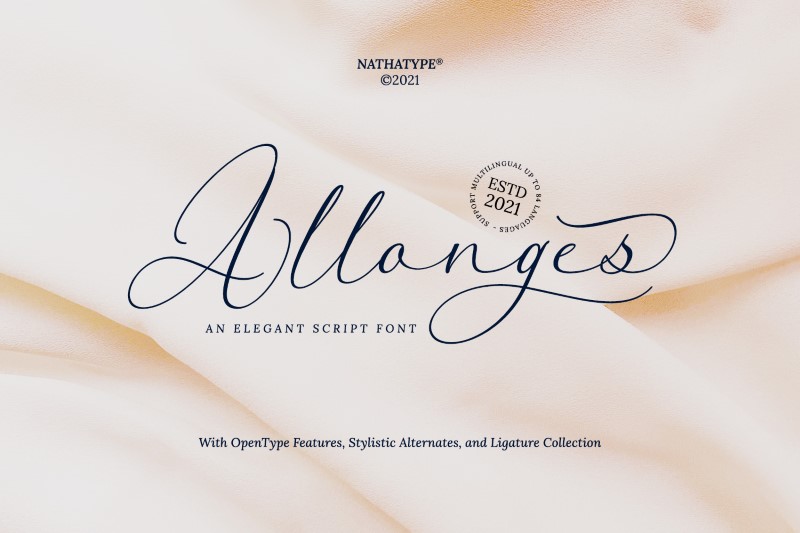
Introducing our first font, Allonges. Allonges is an elegant script font with smooth and beautiful strokes, making it one of the most feminine, natural handwritten fonts in this list. The long strokes of Allonges make it look casual yet captivating, as it resembles beautiful calligraphy. Complete with ligatures, swashes, and stylistic sets, Allonges is ideal for elegant, romantic, and modern branding, logos, wedding invites, greeting cards, fashion lookbooks, and expressive personal projects.
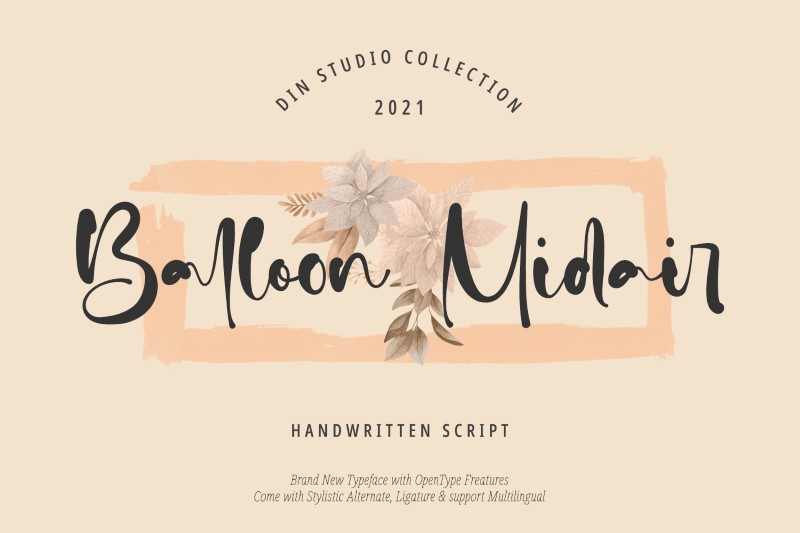
Next, we have Balloon Midair, a handwritten script font with playful and expressive characters. The letters have free-flowing strokes, with thickness variation that looks like they were written by hand using a brush or pen. These traits provide a personal and expressive impression for the font. The variation in baseline height adds a distinctive dynamic feel to each letter. Rounded, inflated shapes combined with the soft curves characteristic of Balloon Midair create a pleasant, casual, yet still elegant impression. This font is suitable for creative designs such as invitations, packaging, quotes, branding, and promotions.
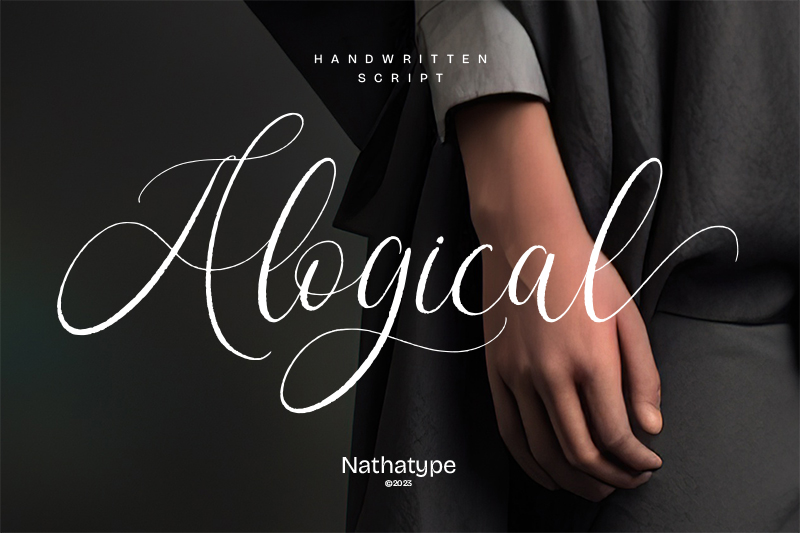
And then there’s Alogical. Among natural handwritten script fonts, Alogical stands out for its artistic swashes and beautifully organic style. Each letter flows gracefully, balancing elegance with emotional warmth. Its flexible and expressive letterforms bring a personal touch to any design, making it perfect for wedding invitations, upscale branding, editorial layouts, and premium product packaging.
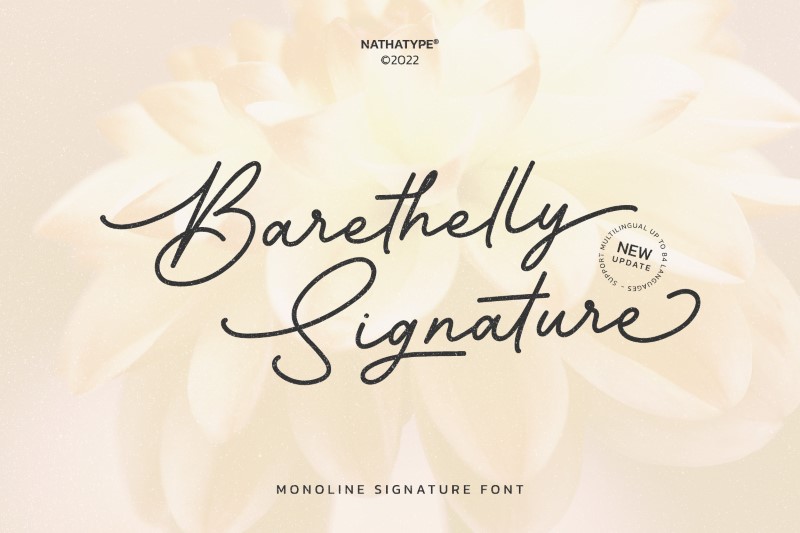
Inspired by human signature, Barethelly Signature exudes a vibe that most of the natural handwritten fonts here have: a clean, elegant, and confident look. With smooth monolines, this font boosts an impression of modernity and personal touch that is perfect for various designs like social media posts, invites, stickers, posters, and more. Barethelly Signature features stylistic sets, ligatures, and swashes that can make any brand easily recognizable globally.
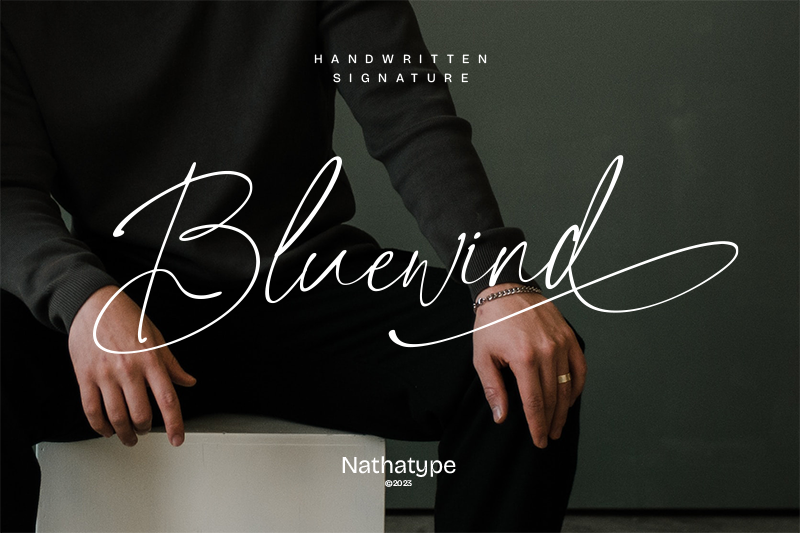
Bluewind has smooth curves with an elegant touch inspired by the beauty of a human signature. This script font falls in the category of natural handwritten fonts because each letter is designed with smooth swashes and low contrast, looking natural yet artistic at the same time. The balanced spacing and the gracious flow of the lines make it captivating yet easily readable at the same time. With stylistic sets and ligatures, Bluewind is perfect for professional design needs like headlines, logos, posters, and more.
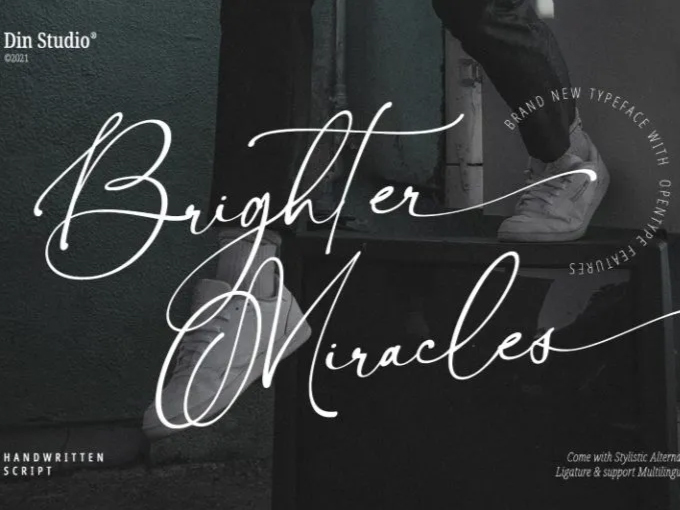
With natural strokes and elegant curves, Brighter Miracles creates a beautiful, modern, signature-like appearance. Just like other fonts in this list, Brighter Miracles features stylistic alternates, ligatures, and multilingual support for global audiences. The character of this font lies in its elegant, stylish, and charming impression, making it an ideal choice for classy yet warm design projects like logos, branding, wedding invites, quotes, and other types of designs.
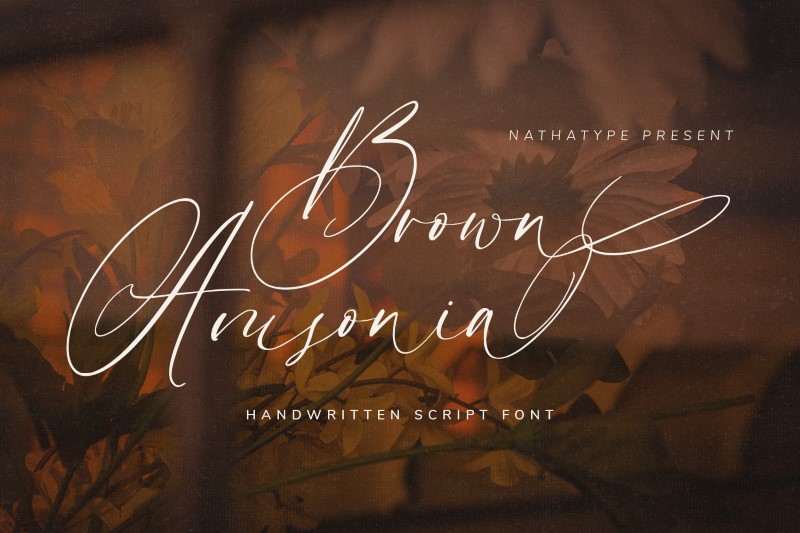
Let’s now explore Brown Amsonia. It’s a handwritten script font with a distinct and personal touch in each stroke. The great contrast in thickness of this font gives it a professional and modern look. The font’s connected letters, as well as its sharp and curving edges, make it ideal for large texts such as titles or headlines. Aside from that, it is ideal for designing a poster, invitation, or quotation that is artistic and eye-catching.
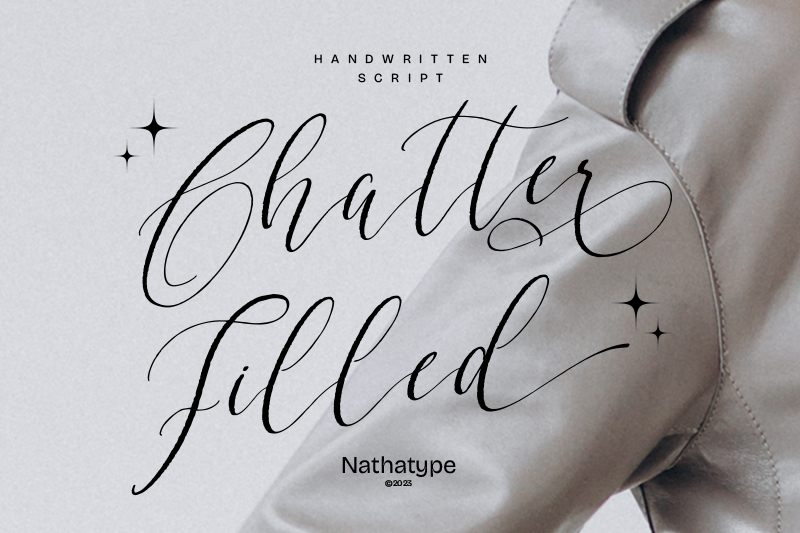
Explore the 17 fonts above to create elegant and captivating designs with a touch of authentic handwriting. With the right combination, each work will look more aesthetic and feel more personal to the audience.